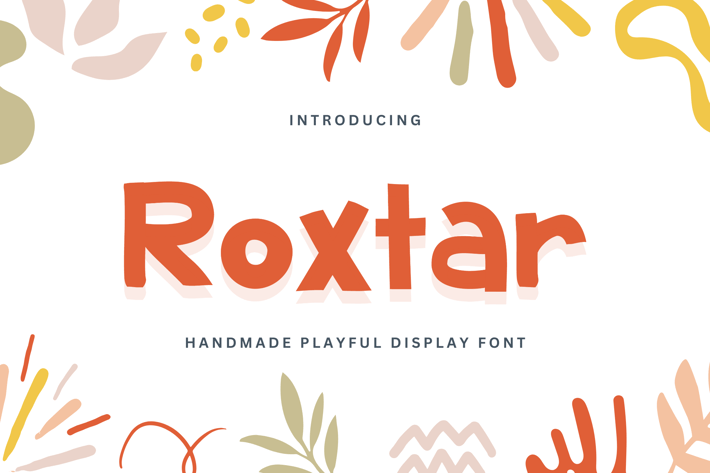
Roxstar - Handmade Playful Display Font
Roxstar is a dynamic handmade playful display font that adds a burst of energy and vibrancy to your designs. With its bold and striking appearance, Roxstar is perfect for projects that need a touch of liveliness and flair. Whether you're working on posters, logos, or eye-catching headlines, Roxstar's playful and captivating style will instantly grab attention and leave a lasting impression.
Let Roxstar be the go-to choice for infusing your designs with an electrifying and dynamic visual appeal, making every creation stand out and shine with its own unique personality.
Elevate your designs with Roxstar, the handmade playful display font that injects an exciting burst of energy and vibrancy. With its bold and striking appearance, Roxstar is the perfect choice for projects in need of a lively and spirited touch.
Whether you're creating posters, logos, or eye-catching headlines, Roxstar's playful and captivating style is sure to grab attention and leave a lasting impression. Make Roxstar your preferred font for infusing your designs with an electrifying and dynamic visual appeal, ensuring every creation stands out and shines with its own unique personality.